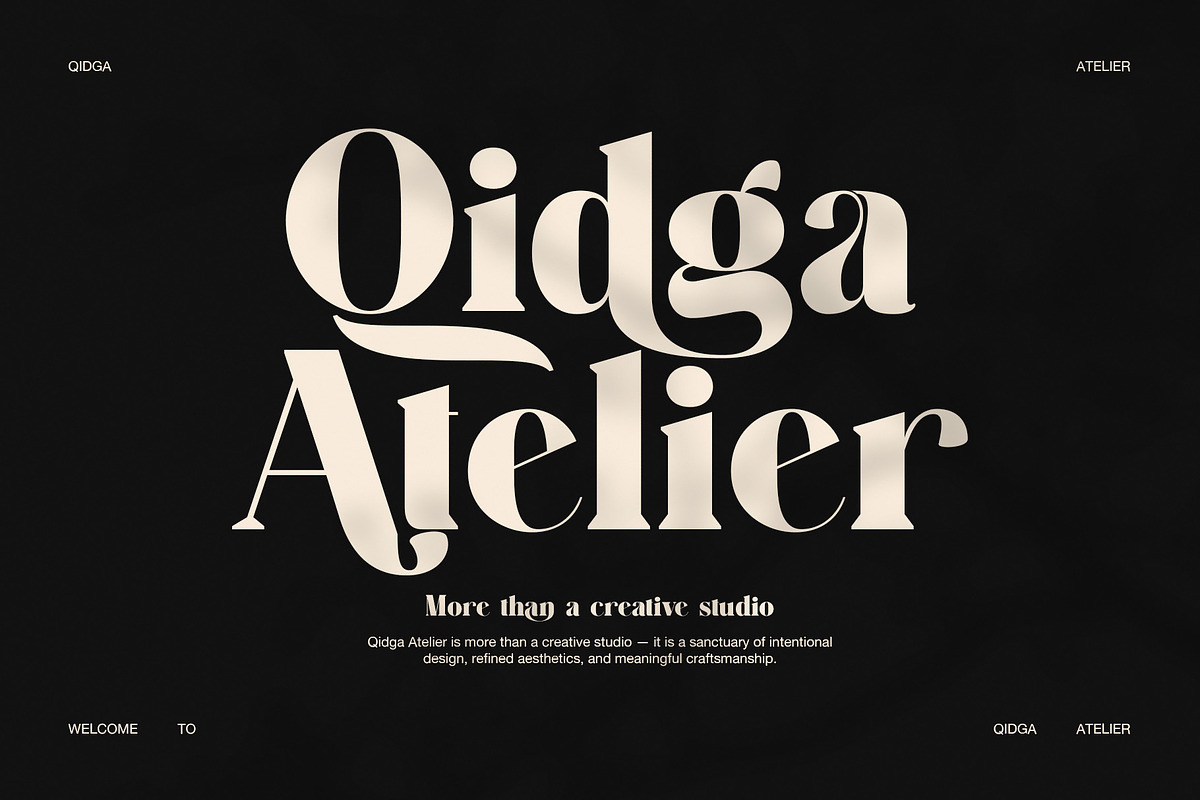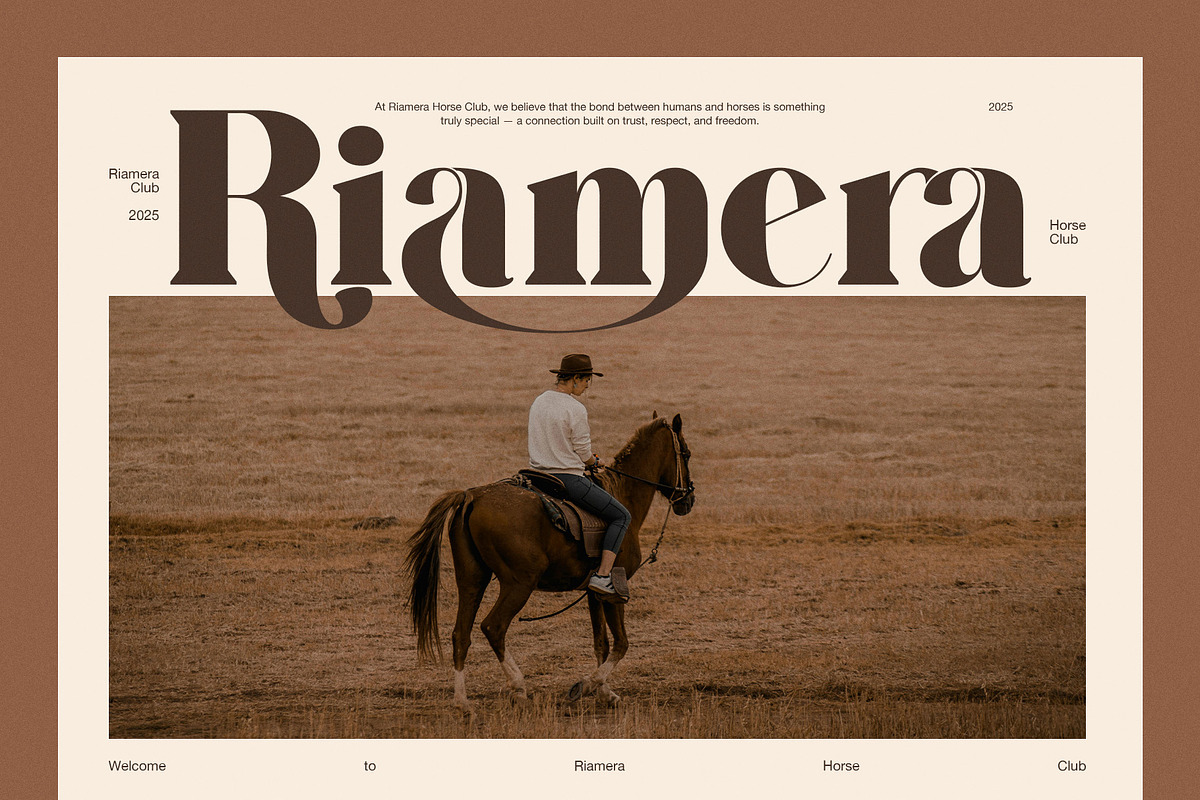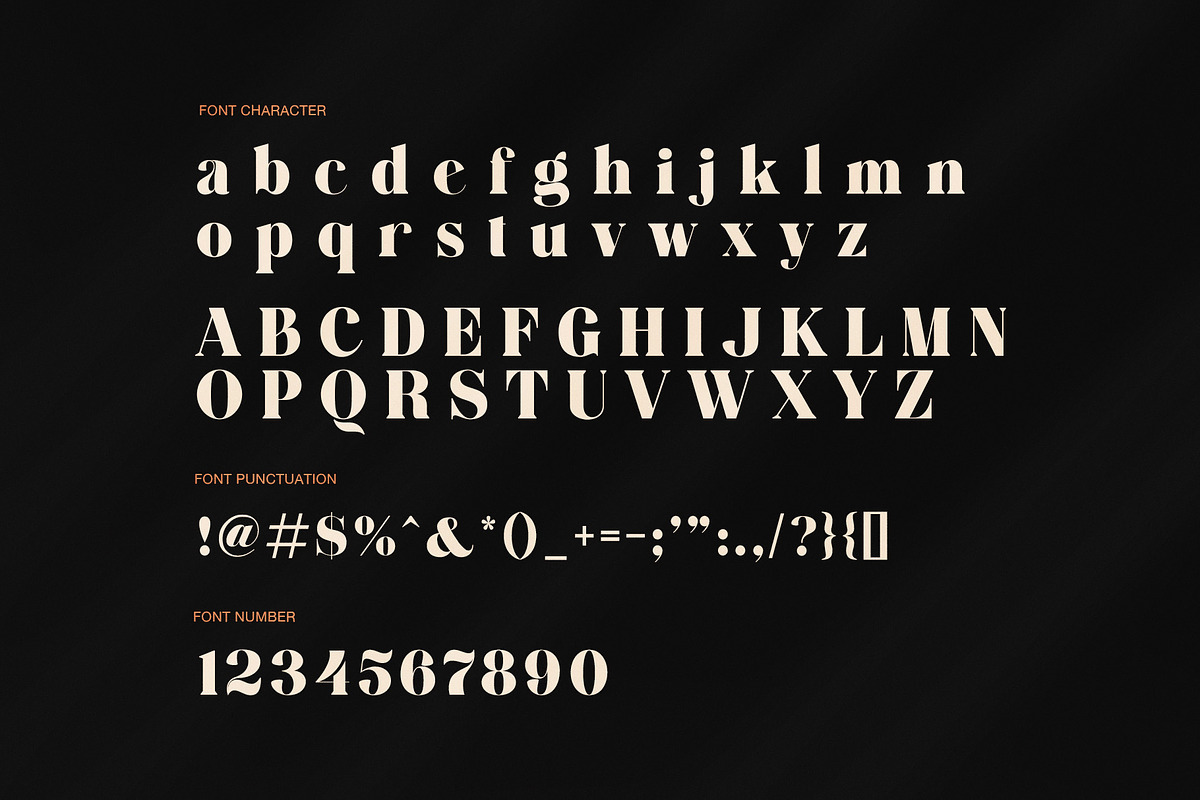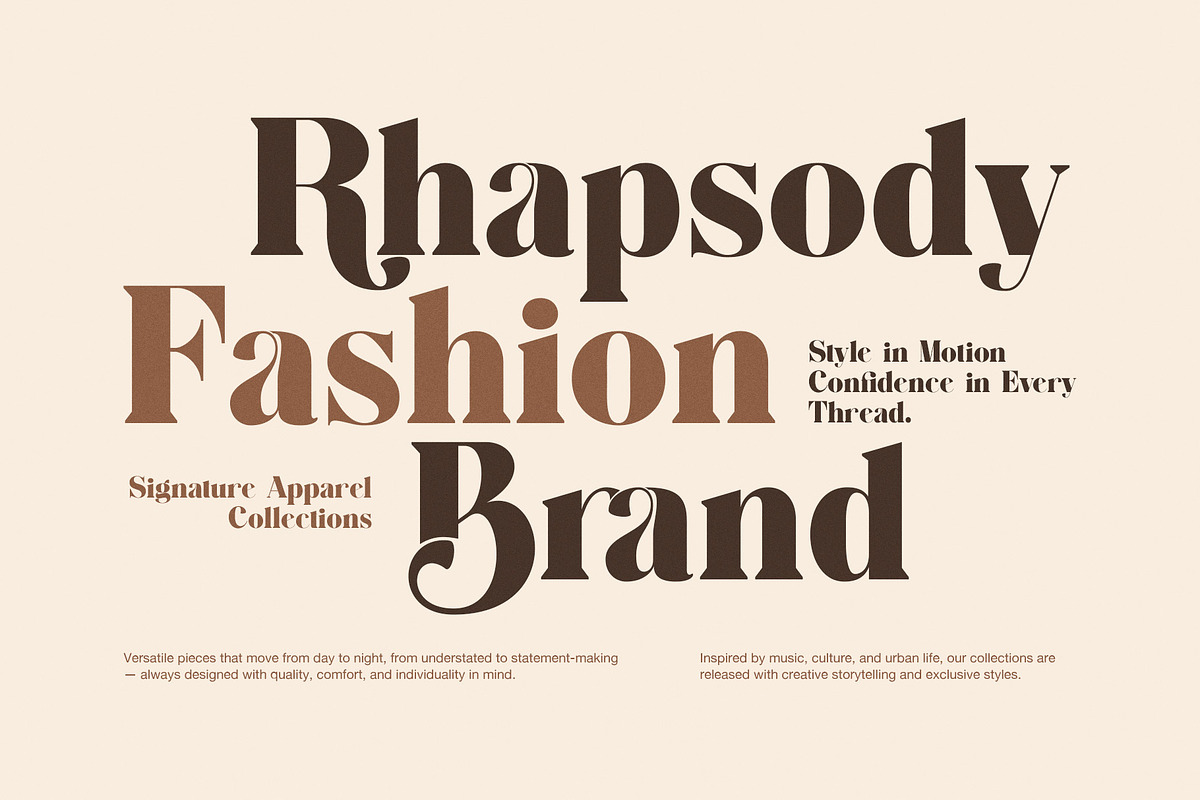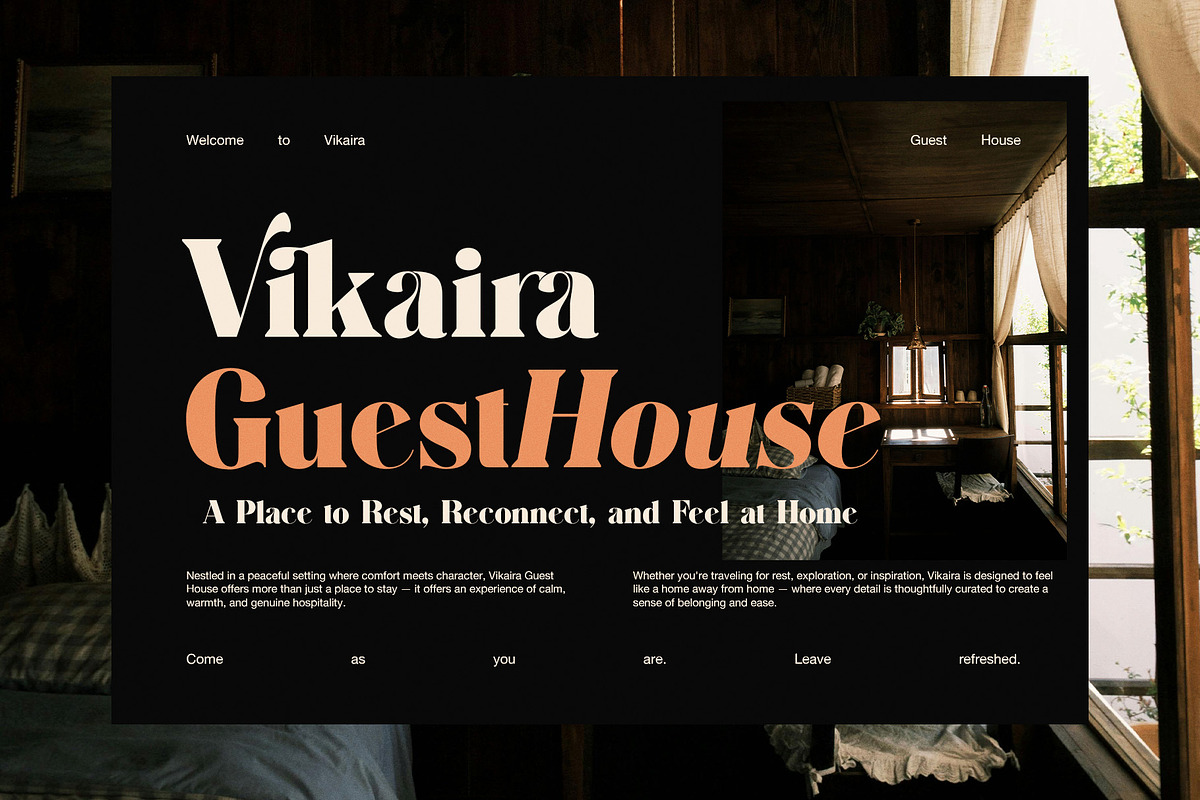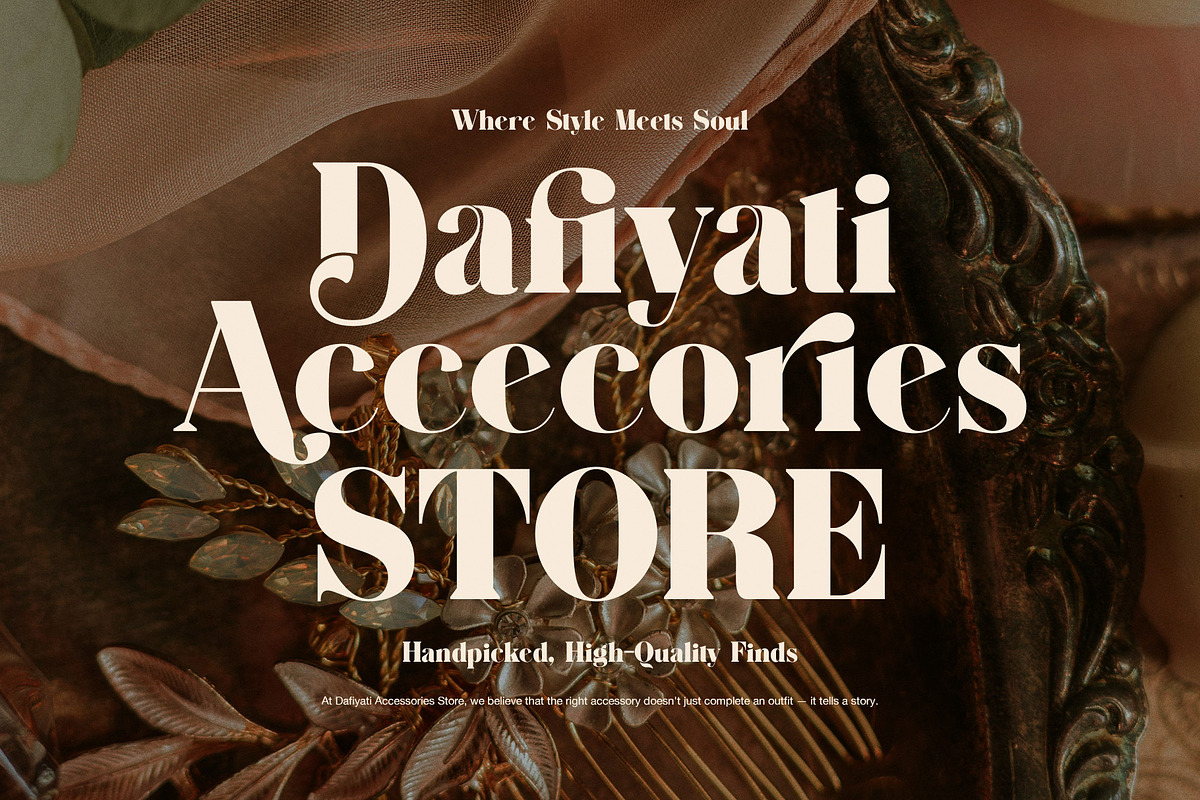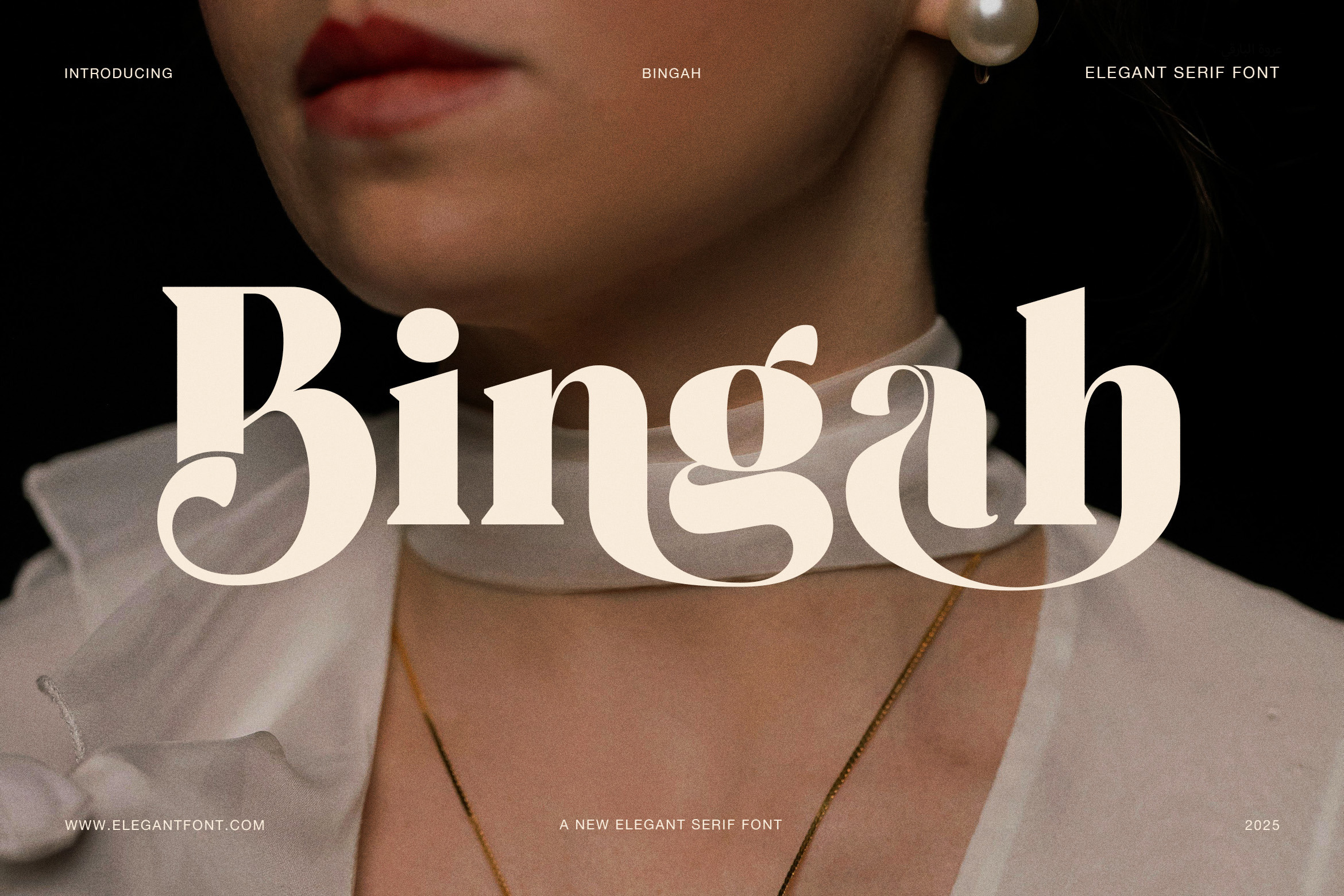
Bingah Elegant Serif Font
Bingah is an elegant serif display font designed to express refinement, confidence, and timeless beauty. From the first glance, this font delivers a graceful balance between classic typography and modern visual rhythm. Because of its sculpted curves and expressive contrast, Bingah feels both artistic and professional at the same time.
At its core, Bingah features soft serifs, smooth terminals, and flowing alternates that create a distinctive personality. Moreover, its carefully shaped letterforms bring warmth and sophistication to every composition. As a result, headlines appear bold yet elegant, while short phrases remain clear and readable.
In addition, Bingah includes alternate characters and ligatures that allow designers to craft unique typographic expressions. These details add visual interest without overwhelming the layout. Therefore, the font works beautifully in both minimal designs and rich editorial settings.
Bingah is especially suited for luxury branding, fashion editorials, boutique websites, and premium packaging. Whether used for a brand logo or a magazine headline, the font communicates style and intention. Furthermore, it performs well across both digital and print media, maintaining clarity and elegance at various sizes.
This serif font pairs naturally with neutral color palettes and editorial photography. However, it also shines when combined with bold imagery or warm tones. Because of its versatility, designers can confidently use Bingah for creative studios, lifestyle brands, hospitality projects, and elegant product promotions.
Elegant serif display style with smooth curves
Stylish alternates for creative typography
Decorative ligatures for refined wordmarks
Balanced contrast for strong visual impact
Clean structure for professional layouts
Fashion and lifestyle branding
Editorial layouts and magazines
Luxury logos and packaging
Website headers and hero sections
Creative studio presentations
Overall, Bingah is more than a font. It is a design tool that elevates visual storytelling. By combining elegance with usability, it helps designers create memorable and polished designs with ease.